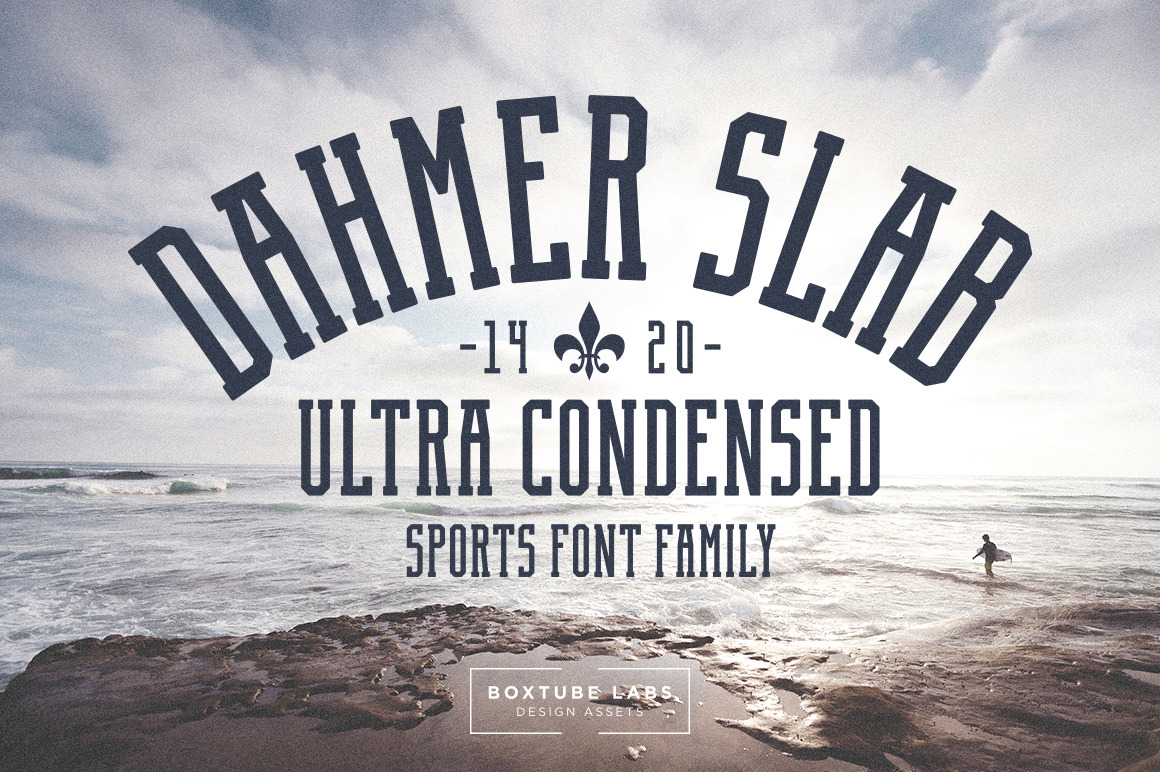
Dahmer Slab - Display Font
Introducing Dahmer Slab - an ultra condensed sports font family perfect for sports logos, branding, posters, apparel design and so much more. Dahmer Slab features six different styles:
- Dahmer Slab Regular
- Dahmer Slab Rounded
- Dahmer Slab Rough
- Dahmer Slab Outline
- Dahmer Slab Rounded Outline
- Dahmer Slab Rough Outline
Includes all caps A-Z, 0-9 and some extra characters, currency figures and punctuations.